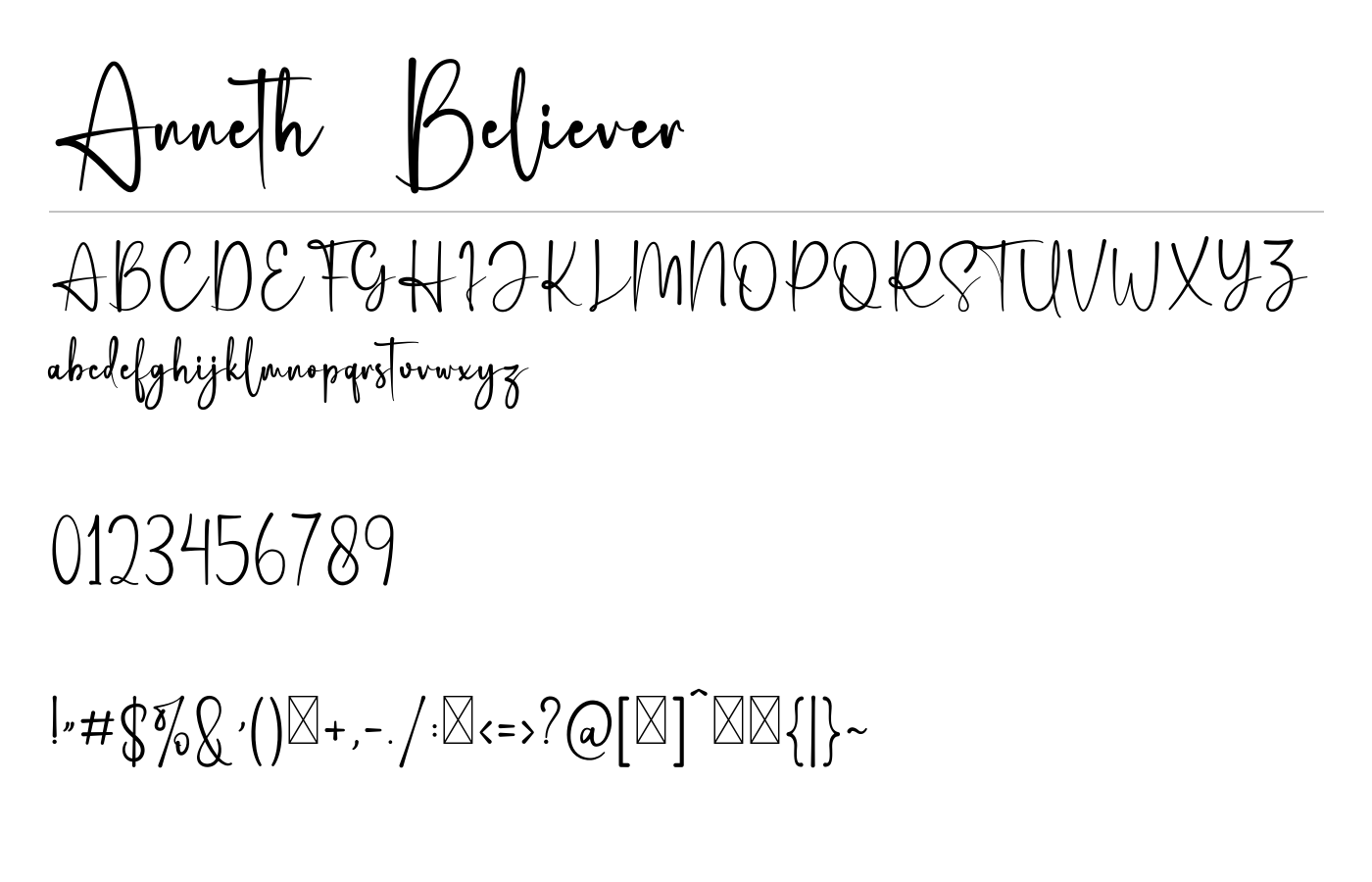
Anneth Believer is a charming handwritten script font with a playful and elegant personality, featuring tall, slender letterforms and delicate, flowing strokes. Its light weight and airy spacing make it perfect for adding a personal, creative touch to invitations, branding, and lifestyle projects where a friendly, approachable feel is desired. This font works beautifully in headlines or short text, giving designs a stylish yet casual vibe.
Anneth Believer Font
About Anneth Believer Font
| Font family | Anneth Believer Font |